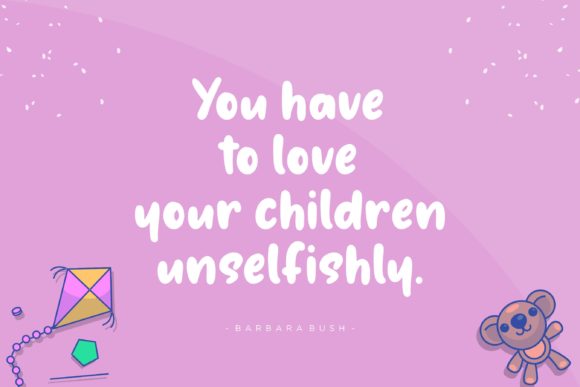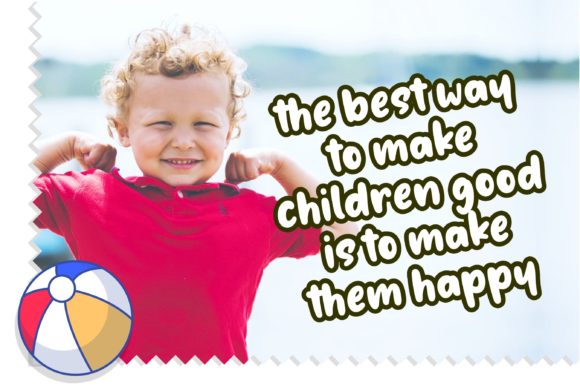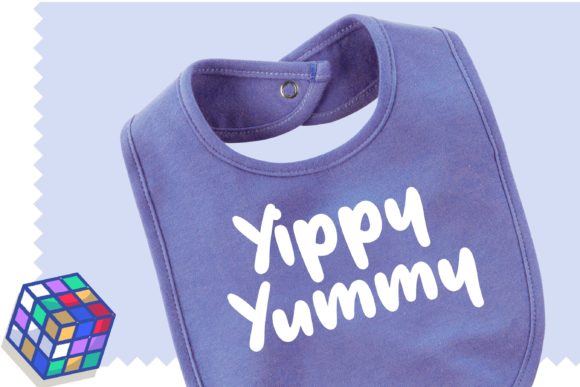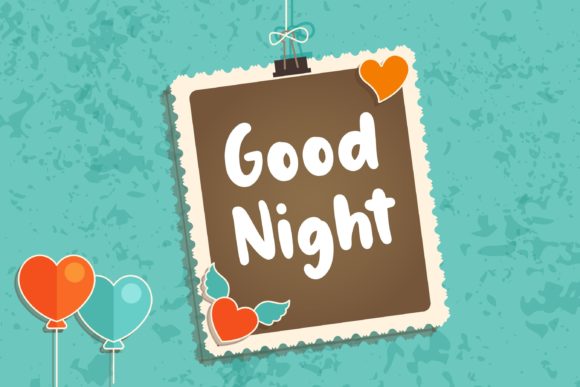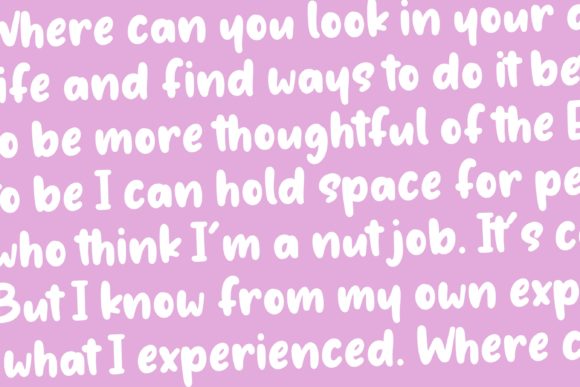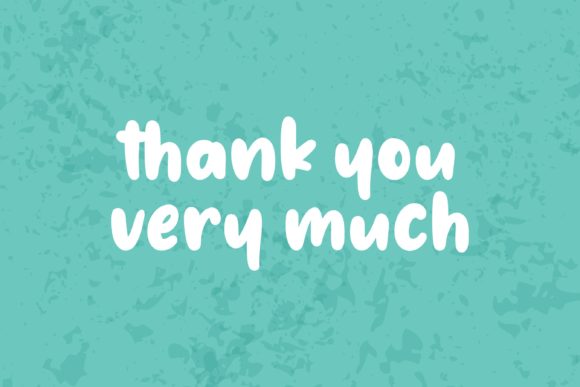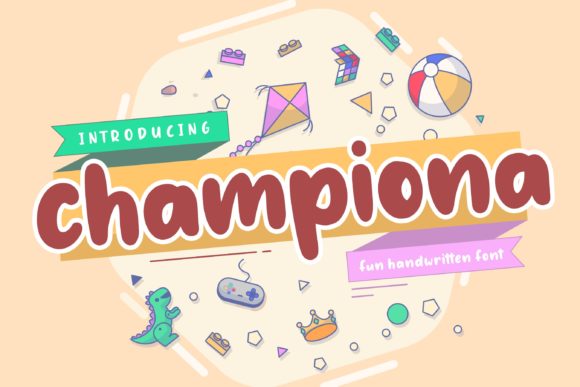
Introducing Championa: The Ultimate Fun Handwritten Font for Designers and Crafters
Are you tired of using the same old fonts in your designs? Look no further! We’re excited to introduce Championa, a bold handwritten font that’s sure to become a true favorite in your collection. With its casual charm and down-to-earth feel, Championa is the perfect addition to any design project. In this article, we’ll dive into the features and benefits of Championa, and explore how you can use it to take your designs to the next level.
The Story Behind Championa
Championa is more than just a font – it’s a carefully handcrafted piece of art that’s designed to bring a touch of personality to your designs. Its creator has poured their heart and soul into crafting a font that’s both beautiful and functional. The result is a bold, yet elegant font that’s perfect for adding a personal touch to your projects.
The Features of Championa
So, what makes Championa so special? Here are just a few of its standout features:
- Bold and Eye-Catching: Championa is a bold font that’s designed to grab attention. Its thick strokes and confident lines make it perfect for headlines, titles, and other applications where you want to make a statement.
- Casual Charm: Despite its boldness, Championa has a casual, down-to-earth feel that’s perfect for designs that need a touch of personality. It’s a font that feels approachable and friendly, making it perfect for brands that want to connect with their audience.
- Highly Readable: One of the standout features of Championa is its readability. Even at small sizes, this font remains clear and easy to read, making it perfect for body text, captions, and other applications where legibility is key.
- Incredibly Versatile: Championa is a font that can do it all. Use it for headlines, titles, and other display text, or use it for body text and other applications where a personal touch is needed. It’s a font that works beautifully on busy backgrounds, and looks stunning as a standalone headline.
Using Championa in Your Designs
So, how can you use Championa in your designs? The possibilities are endless! Here are a few ideas to get you started:
- Headlines and Titles: Use Championa to add a bold, eye-catching headline to your design. Its confidence and personality make it perfect for grabbing attention and drawing the reader in.
- Branding and Packaging: Championa is a font that’s perfect for brands that want to add a personal touch to their packaging and branding materials. Use it for labels, logos, and other applications where you want to make a statement.
- Social Media Graphics: Championa is a font that’s perfect for social media graphics, where you need to grab attention quickly. Use it for Facebook posts, Instagram captions, and other applications where you want to stand out.
- Invitations and Stationery: Championa is a font that’s perfect for invitations, stationery, and other applications where you want to add a touch of personality to your designs.
Why Designers and Crafters Love Championa
So, why do designers and crafters love Championa? Here are just a few reasons:
- Unique and Personal: Championa is a font that’s truly one-of-a-kind. Its handcrafted feel and bold personality make it perfect for designers and crafters who want to add a personal touch to their designs.
- Easy to Use: Championa is a font that’s easy to use, even for those who are new to design. Its readability and versatility make it perfect for a wide range of applications.
- High-Quality: Championa is a high-quality font that’s designed to deliver exceptional results. Its careful craftsmanship and attention to detail make it perfect for professional designers and crafters.
In conclusion, Championa is a bold handwritten font that’s sure to become a true favorite in your collection. Its casual charm, readability, and versatility make it perfect for a wide range of design applications. Whether you’re a designer, crafter, or DIY enthusiast, Championa is a font that’s sure to inspire and delight. So why wait? Download Championa today and start adding a touch of personality to your designs!